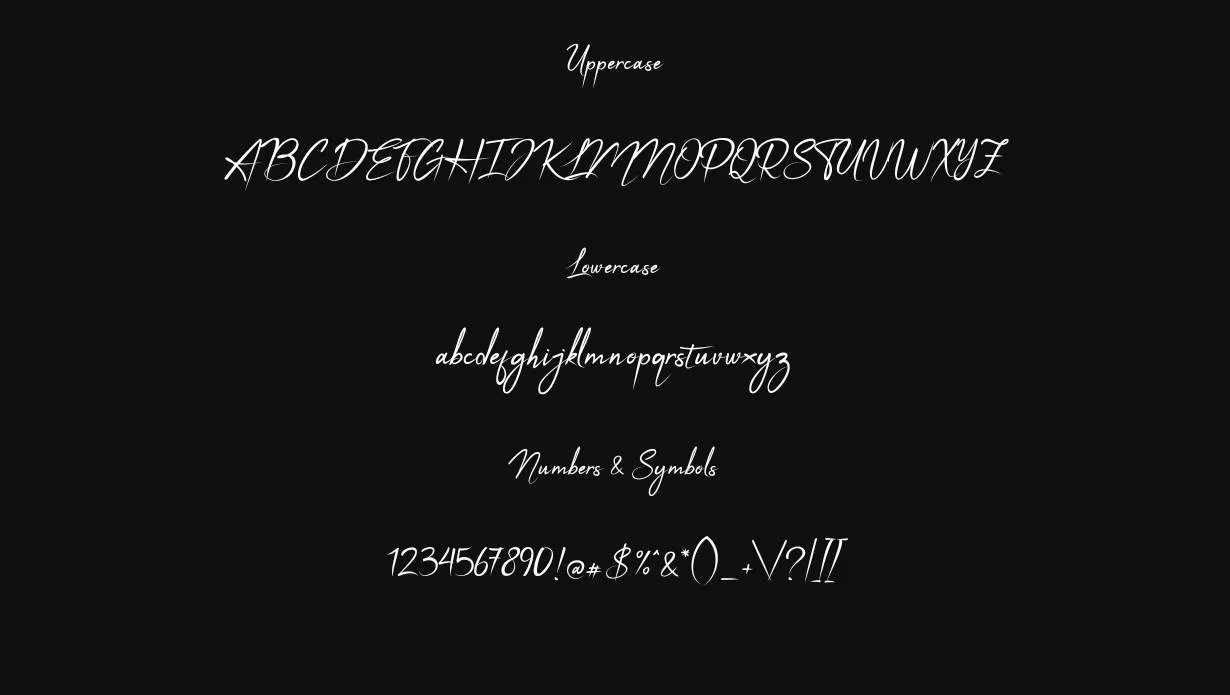
Apalu Font exudes a strong and powerful style, ideal for headlines, posters, and statements that demand attention. This font is commonly available in file formats such as TTF and OTF, guaranteeing compatibility with different design applications.
Apalu Font is a go-to choice when you need your text to stand out and make a statement, making it ideal for eye-catching designs and impactful titles. Its bold and commanding presence makes Apalu Font the perfect option for those looking to grab attention and create a powerful visual impact.
| Name | Apalu Font |
| Designer | Khurasan |